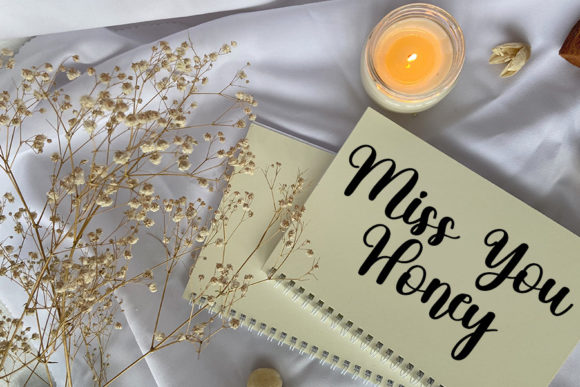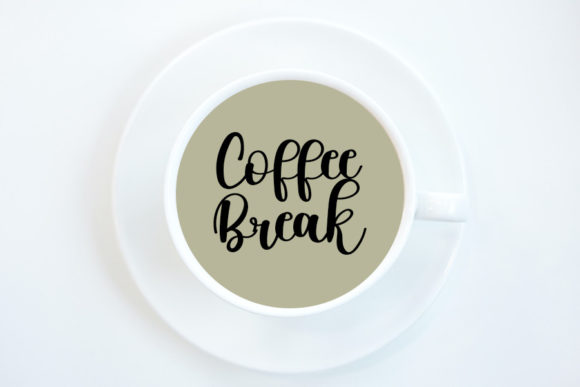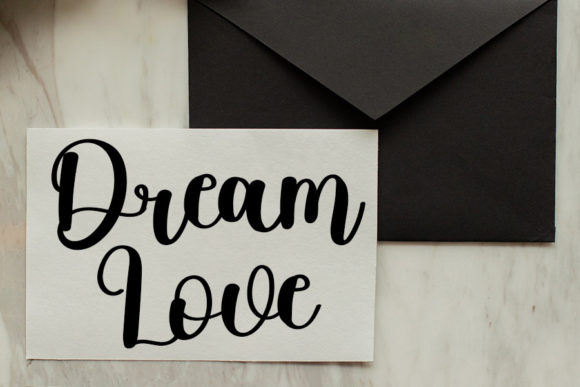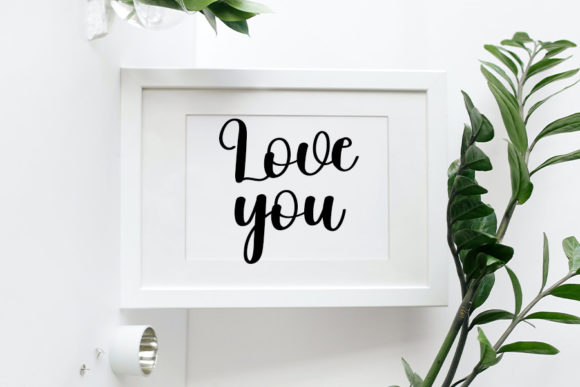
Hello Pastel Font
About Hello Pastel Font
Hello Pastel is a beautiful and charming handwritten font. It is suitable for your various business needs, including shirt designs, logos, banners, and others. Apart from that, this font is easy to use on Windows and Mac OS devices. The beauty of this font will make your business look beautiful in the market.